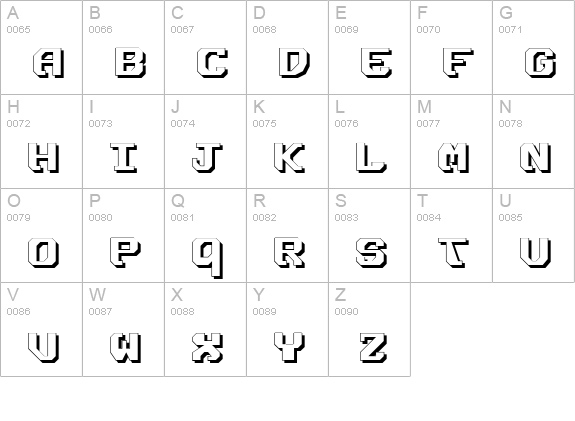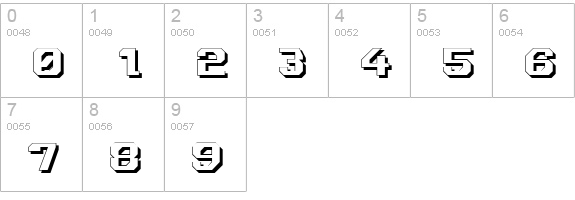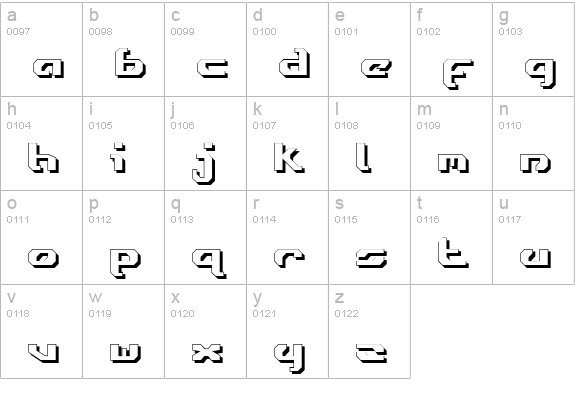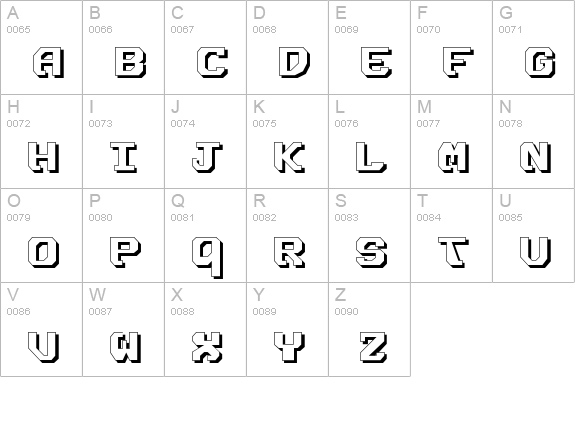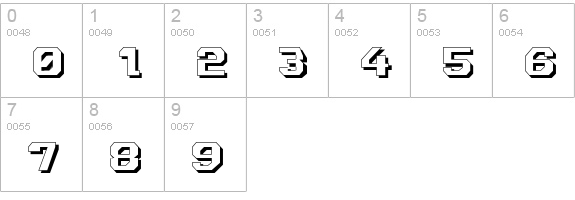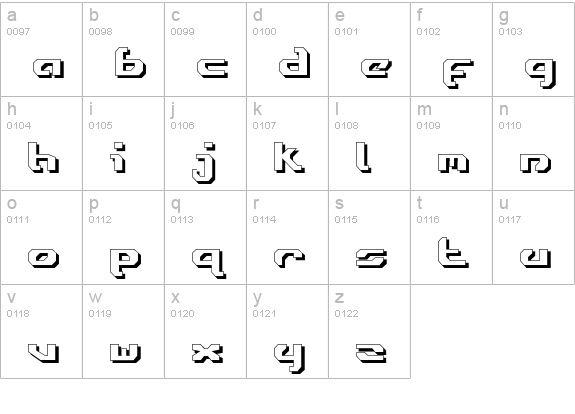
Ensign Flandry Shadow font is a bold and striking typeface that exudes a sense of elegance and sophistication. Its intricate design features sharp edges and intricate shadows that create a dramatic effect, making it perfect for eye-catching headlines and graphic design projects. This versatile font is sure to make your text stand out and leave a lasting impression. The best part? Ensign Flandry Shadow font is completely free to download at FontsMarket.com. With just a few clicks, you can add this unique and stylish font to your collection and use it in a wide range of creative projects. Whether you're designing a poster, website, or logo, Ensign Flandry Shadow font will help you make a bold statement and elevate your design to the next level. Don't miss out on this fantastic opportunity to enhance your typography with this exceptional font – download it today and let your creativity shine!